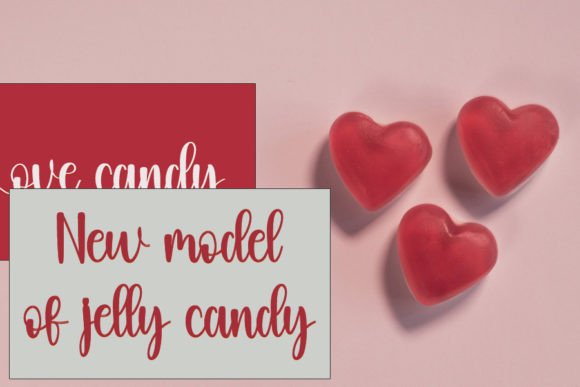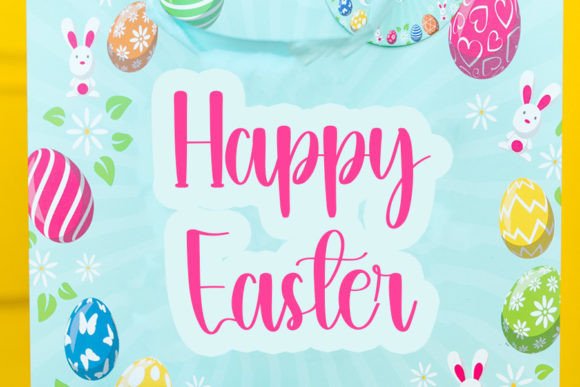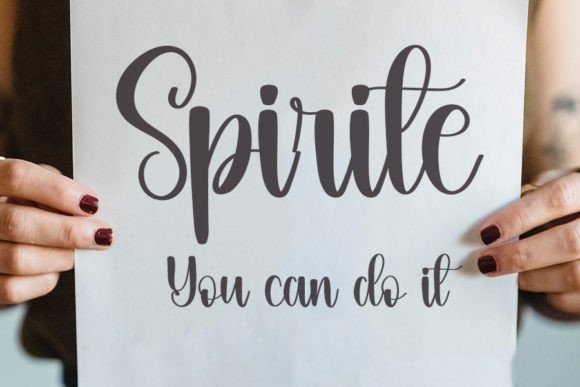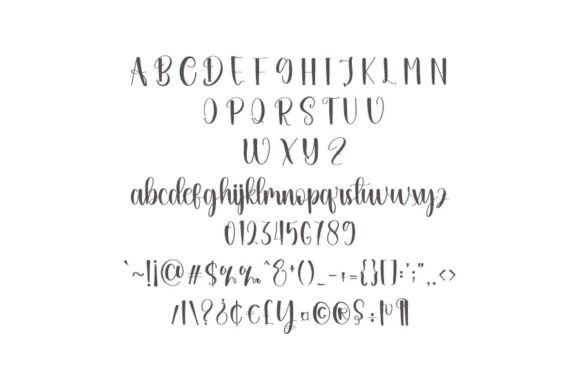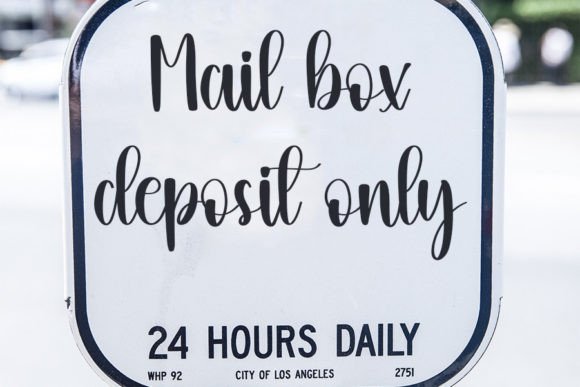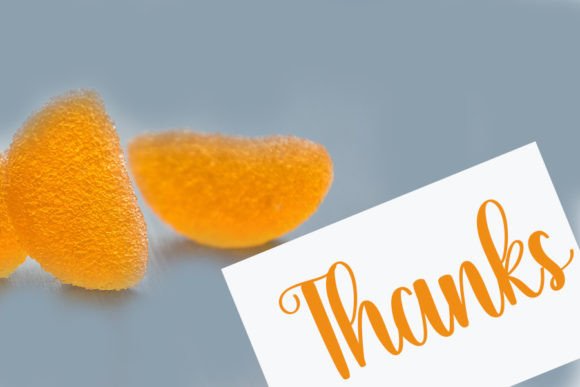
Candy Font
About Candy Font
Candy Font is an enchanting handwritten script designed to bring warmth, charm, and romance to your creative projects. This font boasts elegant, flowing strokes that make it suitable for a wide range of design applications, from heartfelt greeting cards to eye-catching headlines.
Ideal for Greeting Cards and Invitations
Candy Font excels in creating intimate and romantic vibes, making it perfect for greeting cards, wedding invitations, thank you notes, and other special occasions. Its graceful curves add an elegant touch that emotionally with recipients.
Perfect for Headlines and Branding
Whether you need a striking headline or a signature logo, CandyFont’s distinct handwritten style enhances any branding project. It captures attention with its delicate yet confident strokes, ideal for businesses that want to convey sophistication.
Versatile Use in Creative Projects
Beyond cards and branding, CandyFont works well for social media graphics, posters, packaging, and more. Its readability and decorative nature allow it to fit seamlessly into both digital and print designs.
Why Choose Candy Font?
CandyFont combines beauty and versatility, making it a valuable addition to any designer’s toolkit. Its romantic flair and flexible application help your projects stand out with a personal, handcrafted feel.